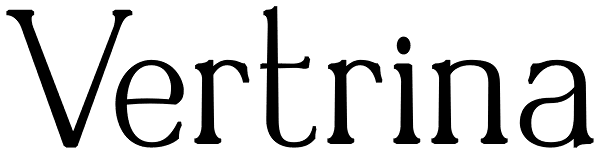
Vertrina
Vertrina marries four virtues: elegance, simplicity, character and usefulness. It started as an idea to combine two things: the elegance of classical Roman typefaces and of classical Roman architecture. The result is that rarest of all things - a...